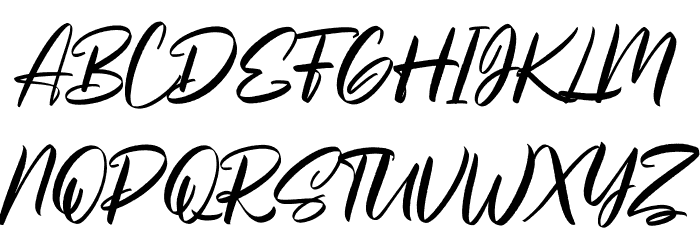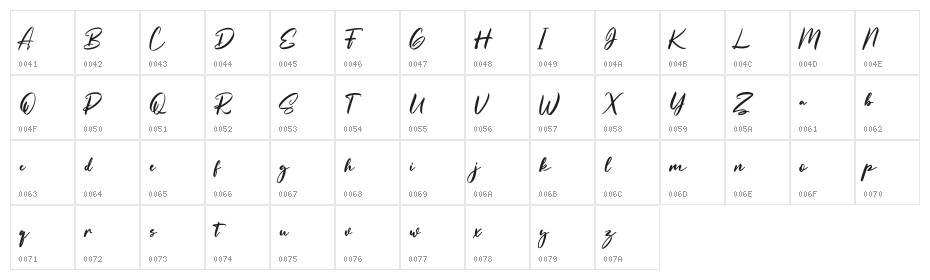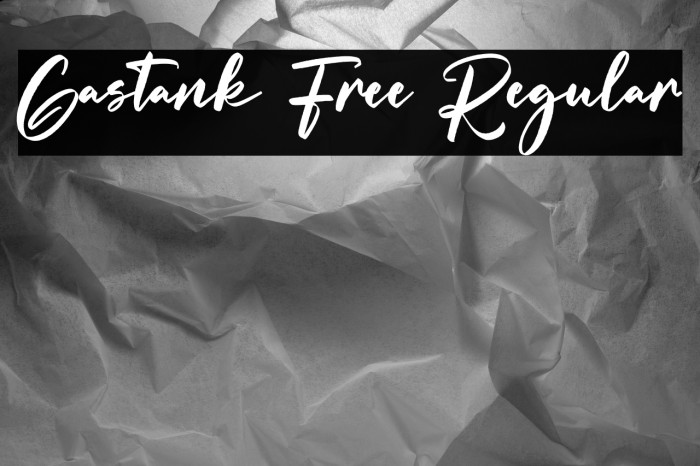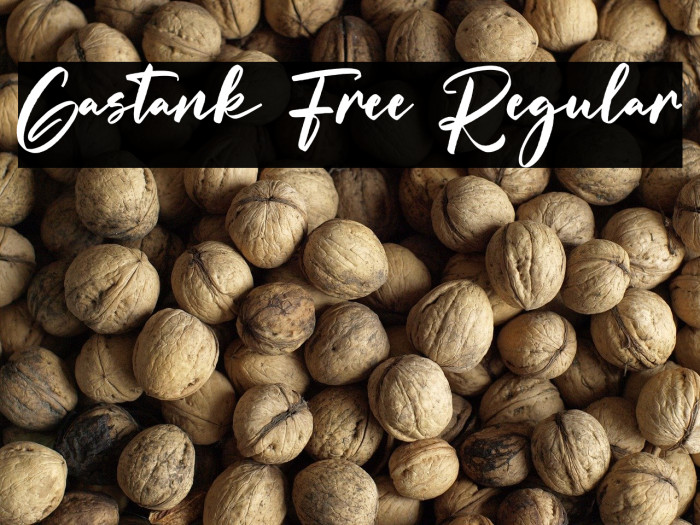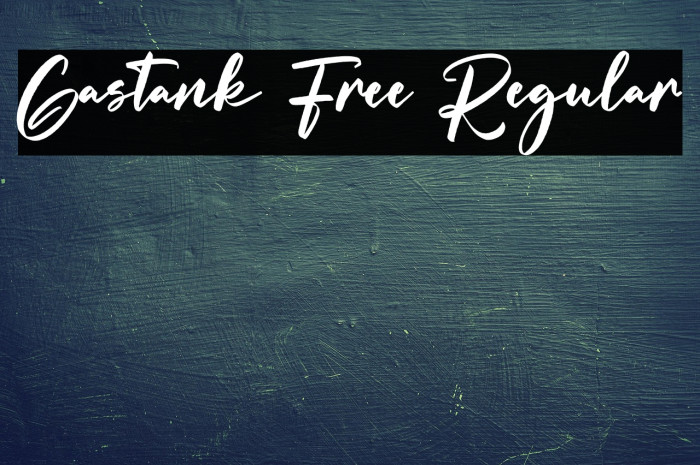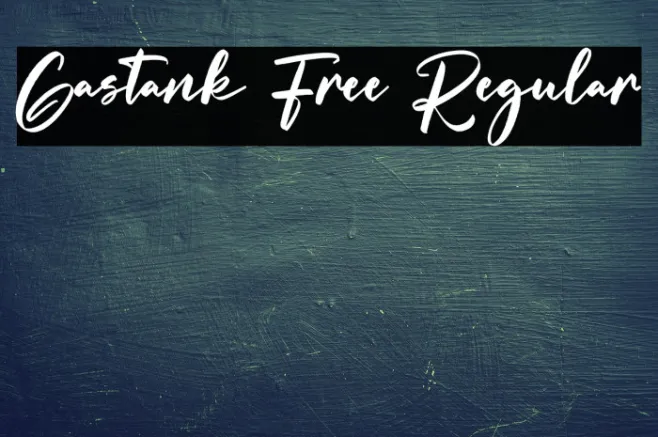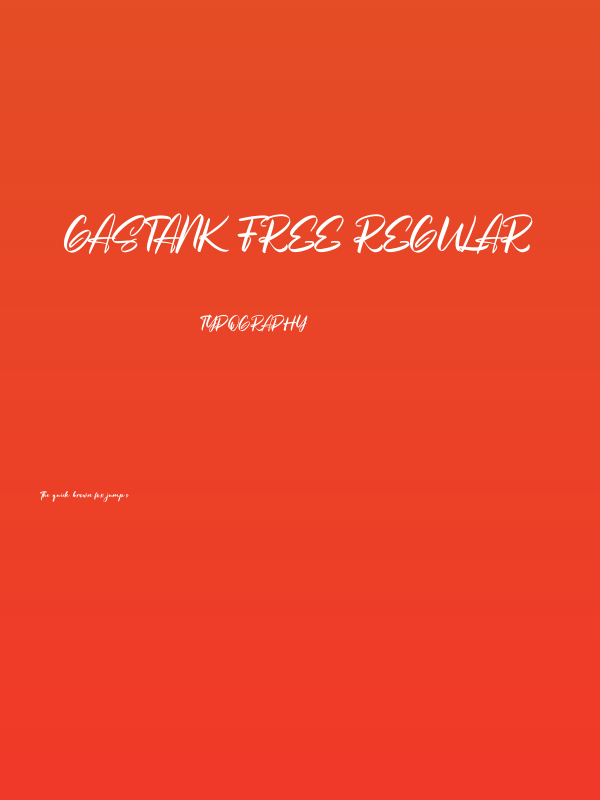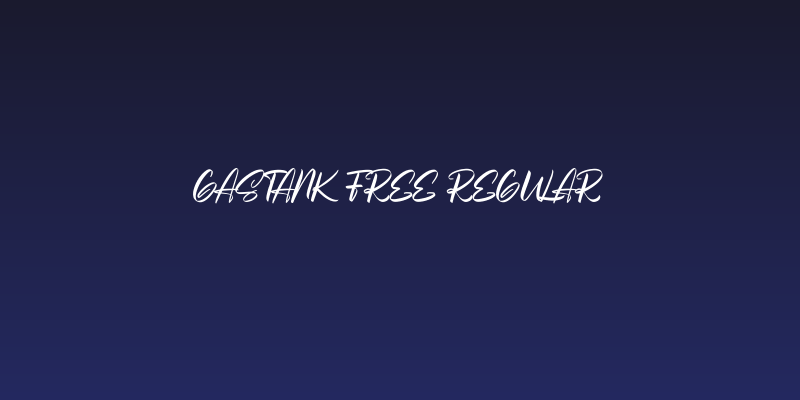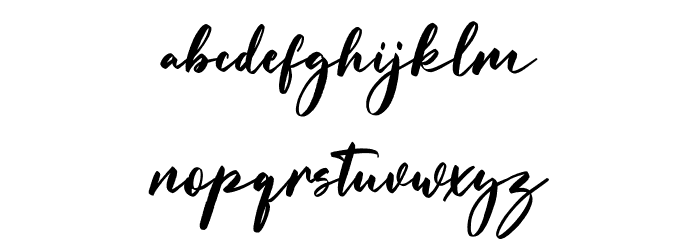
Gastank Free Regular Font
Gastank Free Regular Description
This font features a dynamic and expressive script style, characterized by its fluid and cursive letterforms. The strokes are bold and confident, with a natural flow that mimics handwriting. The uppercase letters are particularly striking, with dramatic flourishes and a sense of movement. The lowercase letters maintain a cohesive look, complementing the uppercase with their elegant curves. This font exudes a sense of creativity and personal touch, making it ideal for projects that require a handwritten or artistic feel.
| Proposed Projects | Ideal for branding, invitations, greeting cards, and artistic projects requiring a personal touch. |